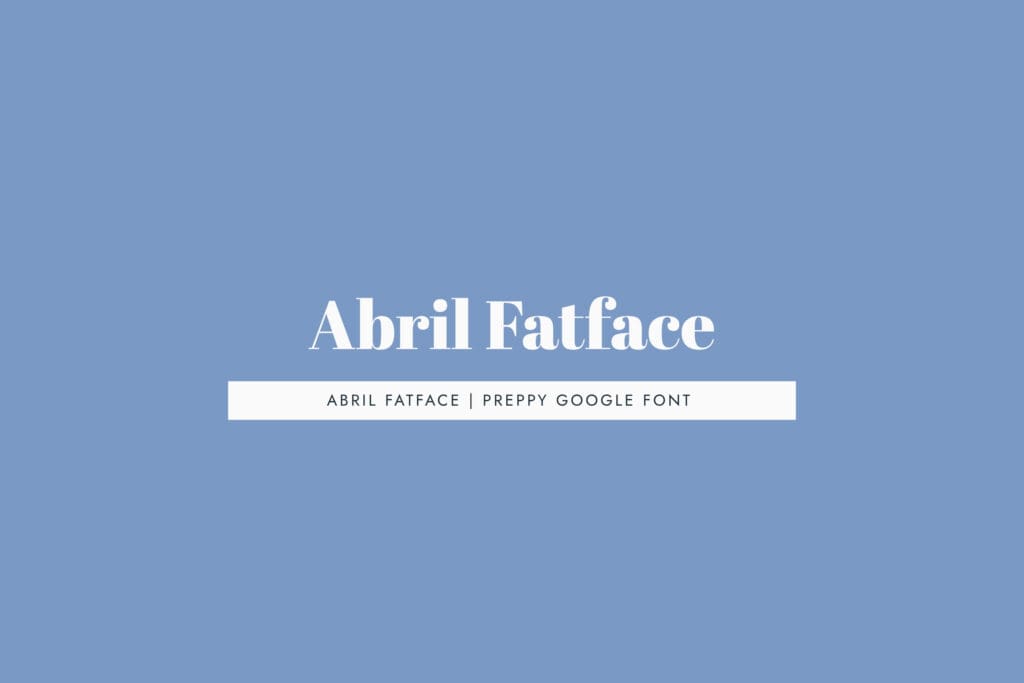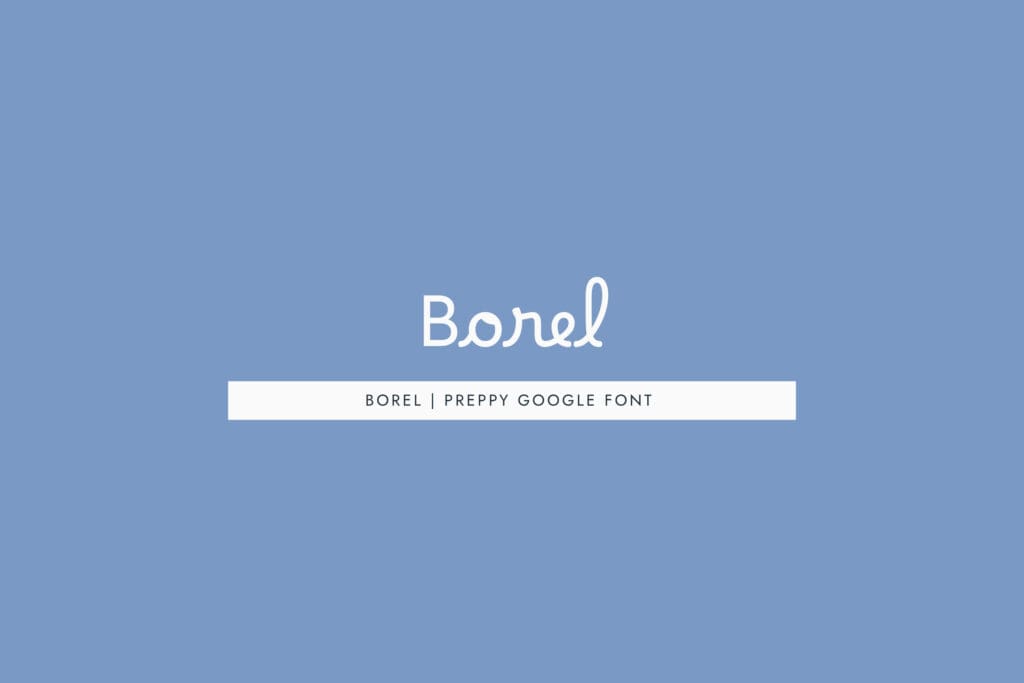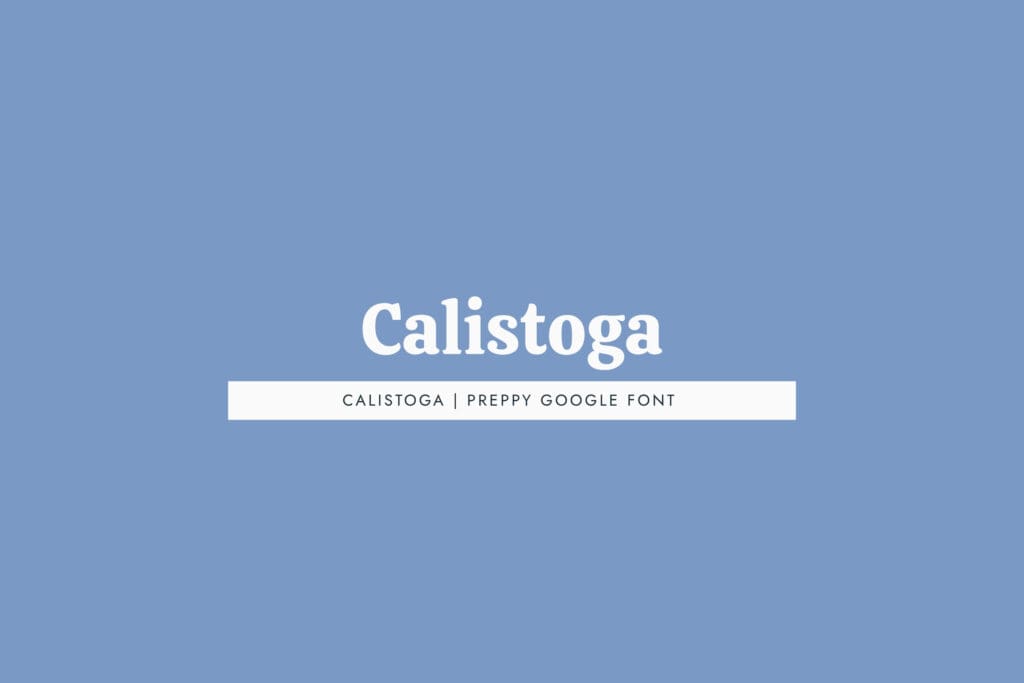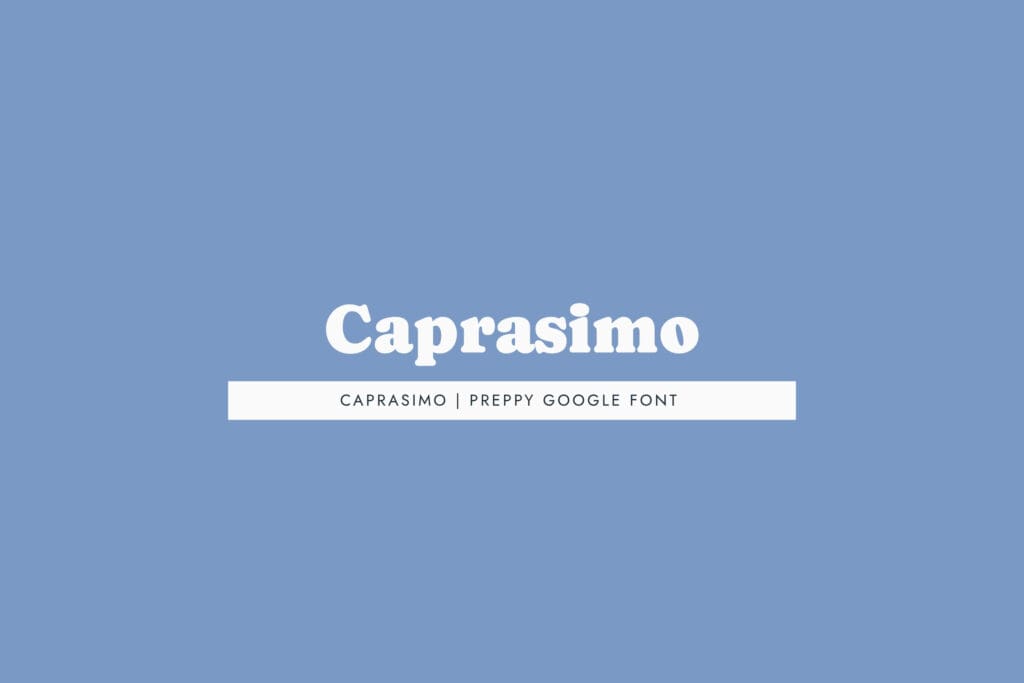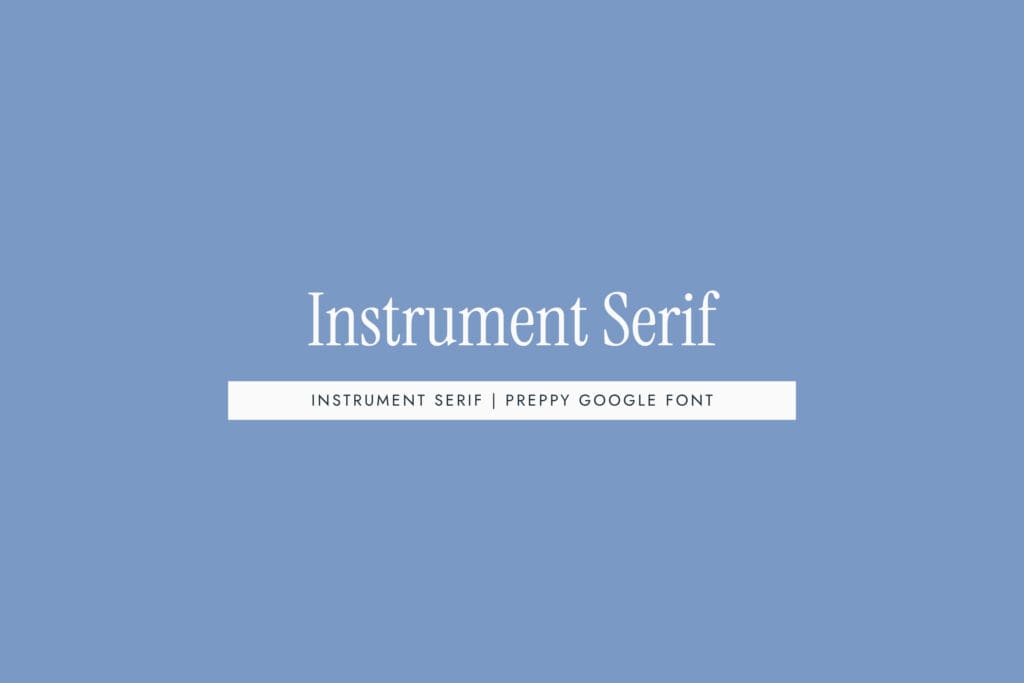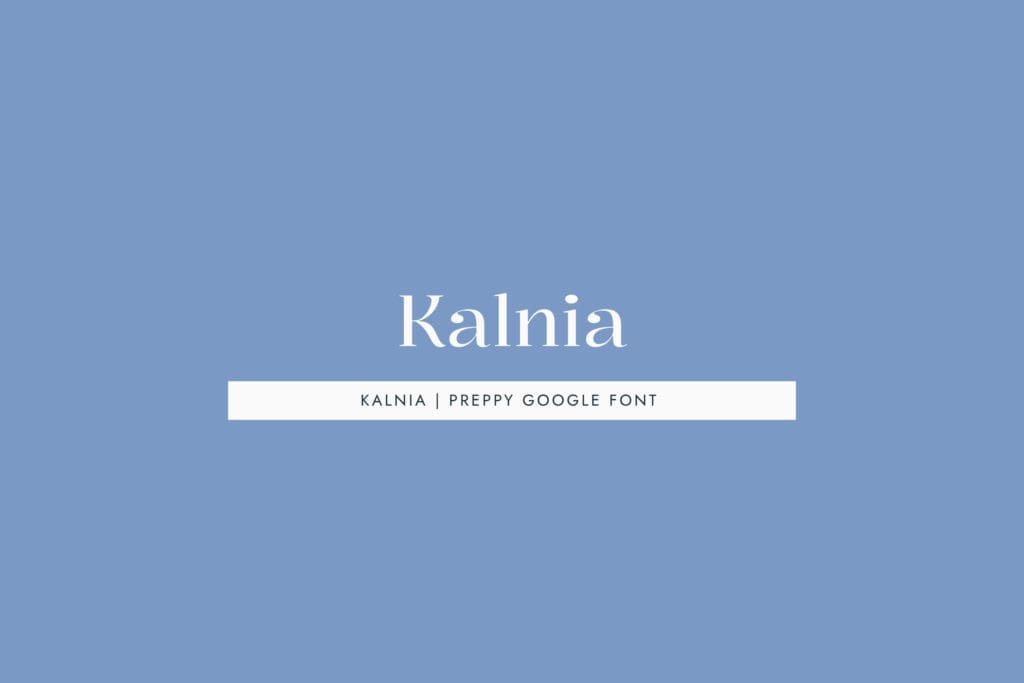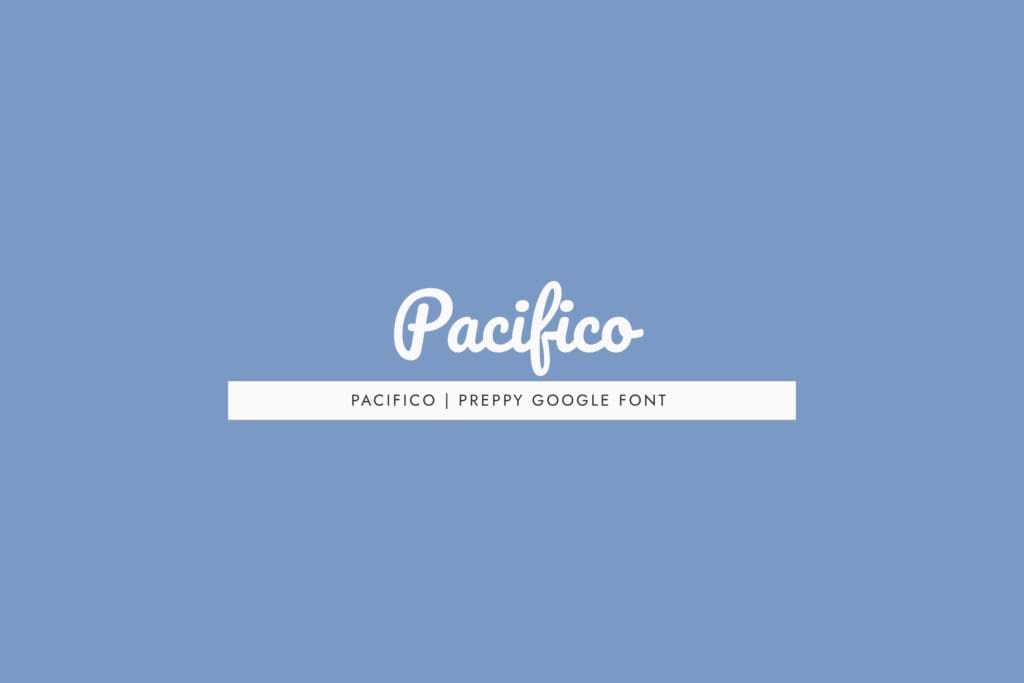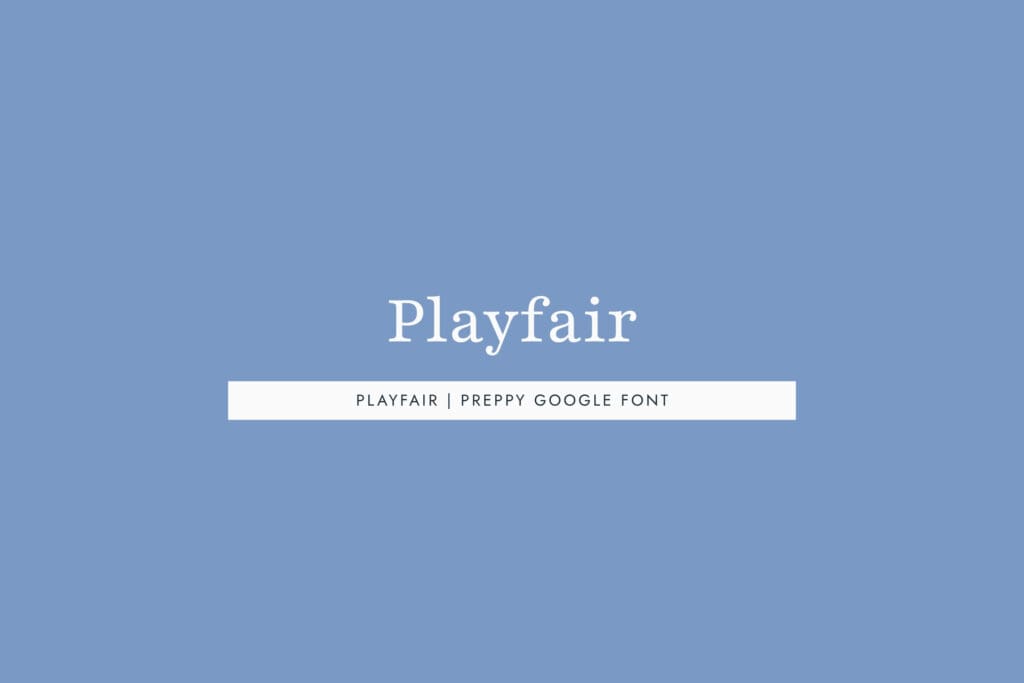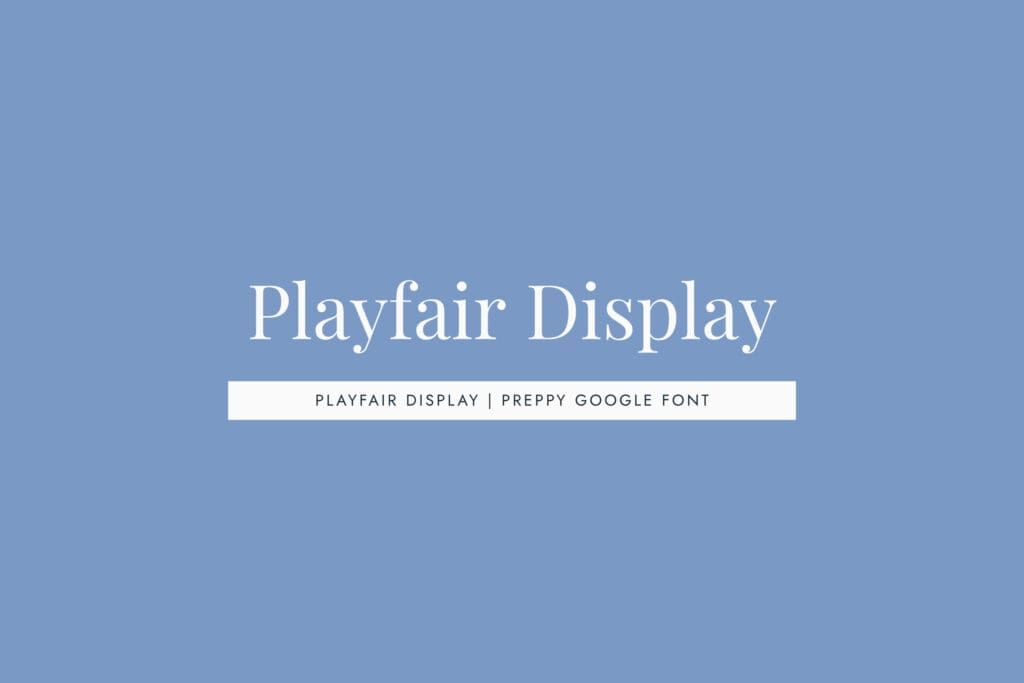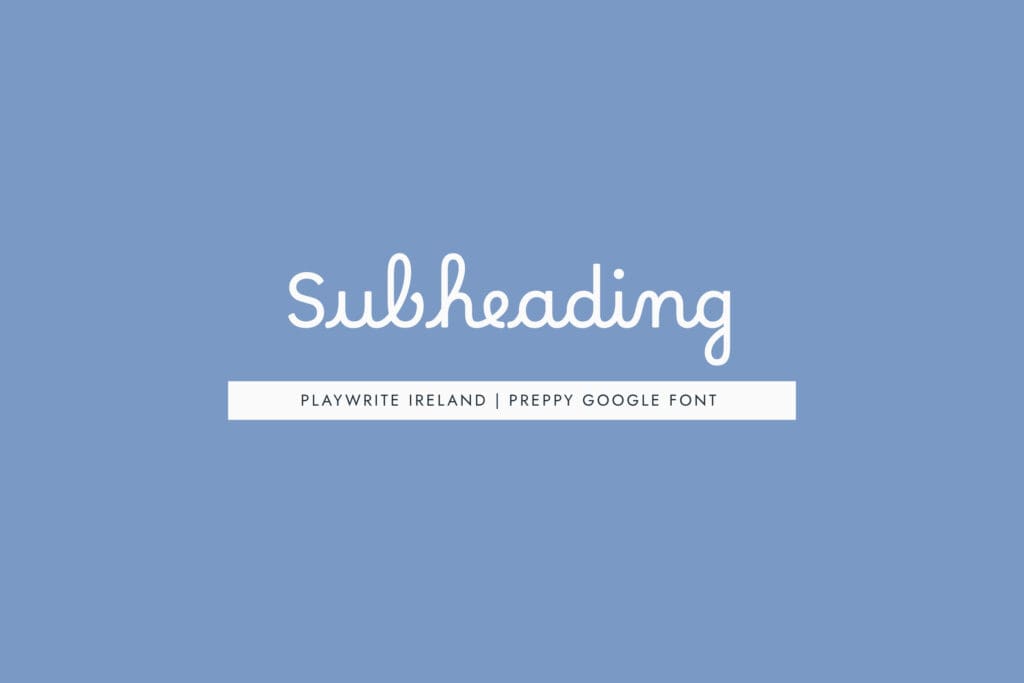
12 Free Preppy Fonts for Your Next Creative Project
Preppy fonts are fonts that give a preppy design aesthetic.
They’re classic, polished, and intentional. Think East Coast charm meets editorial refinement. Rooted in tradition but never stuffy. The kind of typography that looks like it belongs on a monogrammed tote bag or the cover of a well-curated magazine.
I’ve rounded up 12 of my current favorite preppy fonts, and I’ve done the finding work for you. Each font is available free on Google Fonts, so you can use them for your next creative project, social post, lifestyle brand, or website without spending a thing.
I’ve broken the list down into three categories: Classic Preppy Serifs, Fun Preppy Scripts, and Bold Preppy Displays. Whether you’re looking for website inspiration, building a brand, or just hunting for something new, this list has something for you.
Category 1: Classic Preppy Serifs
Playfair Display: This classic preppy display font is a high-contrast serif with dramatic thick-to-thin strokes. It’s ideal for titles, large headings, and works beautifully with luxury or lifestyle businesses.
Playfair: This classic preppy serif is a newer, expanded version of Playfair Display with more weights and flexibility. It works great for full brand systems from headlines to body copy. A versatile serif that can help bring your preppy brand to life.
Instrument Serif: A delicate, refined serif with an almost vintage editorial quality. The slightly condensed feel brings a modern, fun feel while still being very readable. It works well for social media graphics, website headers, signage, and stationery brand concepts.
Unna: This preppy serif is a clean, readable font with classical proportions. A great preppy font for body copy or subheadings when all capitalized. It works anywhere you want a preppy feel that’s still approachable and easy to read.
Kalnia: A distinctive serif with a slightly more decorative structure, unexpected but still polished. Brings a tropical preppy feel to branding, social media graphics, and wordmark logos.
Category 2: Fun Preppy Scripts
Playwrite Ireland: A formal cursive preppy script based on Irish penmanship traditions, flowing and refined. A fun and playful font that can help bring a playful personality and movement to digital products, website design, and wordmark logos.
Borel: A casual handwritten script that’s more relaxed and approachable than a formal cursive. It brings a fun playfulness to social media graphics, quote overlays, and brand accent texts.
Sail: This coastal preppy script font’s name says it all. A slightly stylized script with nautical energy. If your brand is bringing full-on nautical preppy vibes, this is a font made for your titles, headers, and social media graphics.
Category 3: Bold Preppy Display
Abril Fatface: This fatface preppy display has a heavy, high-contrast display serif inspired by 19th century advertising typography. A bold font choice for titles, and headings, a perfect fit for a colorful, fun, preppy brand. It works for branding, social media headers, and digital products, wherever you want real visual impact.
Pacifico: A retro-inspired rounded script with a beachy, confident feel. Fun and playful and perfect for a west coast preppy lifestyle brand. This font works as a personality packed headline or accent font. Ideal for signage, social media, and wordmark logos.
Caprasimo: A chunky, preppy playful display font with vintage summer camp vibes in the best possible way. This font is great for titles, headlines, social media copy, and logos. If your brand is playful, approachable, family-friendly and full of New England preppy vibes, this font is a great fit.
Calistoga: A bold, slightly condensed display serif with a vintage California feel, retro but still polished. It brings a strong typographic presence with a nod to vintage preppy heritage. And it works beautifully for website design, branding, and social media.